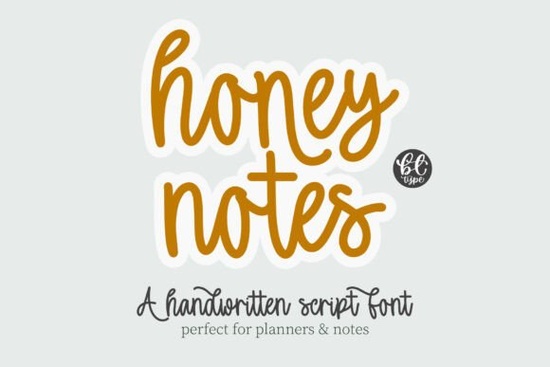
If you're looking for a friendly, hand-drawn script font that feels warm and personal without sacrificing readability Honey Notes Font is a thoughtful choice. It’s not overly decorative or fussy; instead, it strikes a relaxed balance between charm and clarity. Whether you’re designing printable planner pages, crafting Instagram story templates, or making custom stickers for bullet journals, this font adds gentle personality without overwhelming your layout.
What makes Honey Notes different from other handwritten fonts?
Many script fonts lean too far into either “too formal” or “too messy.” Honey Notes avoids both extremes. Its thick, rounded letterforms connect smoothly not tightly or rigidly, but in a way that mimics how someone might write with confidence and ease. You’ll notice the consistent stroke weight and soft curves: no sharp angles, no forced flourishes. That makes it especially comfortable to read at smaller sizes, like on product labels, greeting cards, or digital planner tabs.
It also comes with a bold weight built-in not just a faux-bold version which helps it hold up well in print and on screen. If you’ve ever tried scaling down a delicate script only to lose legibility, you’ll appreciate how Honey Notes stays clear even at 14–16pt. And because it’s PUA-encoded, accessing swashes, alternates, and ligatures is straightforward no digging through character maps or guessing Unicode positions.
Where does Honey Notes work best?
This font shines in projects where authenticity and approachability matter more than polish. Think:
- Planner inserts and habit trackers (especially for wellness, self-care, or productivity themes)
- Social media graphics for small businesses like coffee shops, bakeries, or handmade goods brands
- Digital scrapbooking kits where cohesion and warmth are key
- Children’s activity sheets or learning printables (its rounded forms feel inviting, not intimidating)
- Sticker packs for bullet journaling or Notion dashboard headers
You’ll find it fits naturally alongside other relaxed script fonts like Aurelia Font, which offers a slightly more elegant flow, or Sweetica Font, known for its bouncy rhythm. For projects leaning into rustic charm, Rustic Pantry Font pairs nicely as a complementary display option. And if your audience skews younger or you’re designing for baby-related products the softness of Baby Handwrite Font shares a similar gentle energy.
How to use Honey Notes without overdoing it
Like most strong script fonts, Honey Notes works best when paired with a clean, neutral sans serif for body text or captions think Montserrat, Inter, or even system fonts like Helvetica Neue. Avoid stacking multiple script fonts together unless they’re deliberately contrasted (e.g., Honey Notes for headings + Stylish Handwriting Font for short accents).
Also keep spacing in mind: the font’s generous letter spacing means tighter tracking can help tighten up headlines, while looser line height improves readability in longer phrases. Try using it for short, meaningful phrases “You’ve got this,” “Made with love,” or “Today’s intention” rather than full paragraphs.
Who’s already using fonts like Honey Notes?
We see this style showing up across real-world creative work: small Etsy sellers adding custom names to printable wall art, educators designing classroom reward certificates, indie stationery brands building cohesive branding kits, and Canva creators building reusable social templates. It’s popular not because it’s trendy, but because it supports a tone people respond to genuine, unhurried, and kind.
That said, it’s worth noting that Honey Notes isn’t meant for high-contrast signage, legal disclaimers, or long-form web copy. Its strength lies in moments of connection not information density.
Try pairing Honey Notes with one simple sans serif and a single accent color first. See how it feels in your actual workflow not just as a standalone preview. That’s where its quiet strength becomes clear.